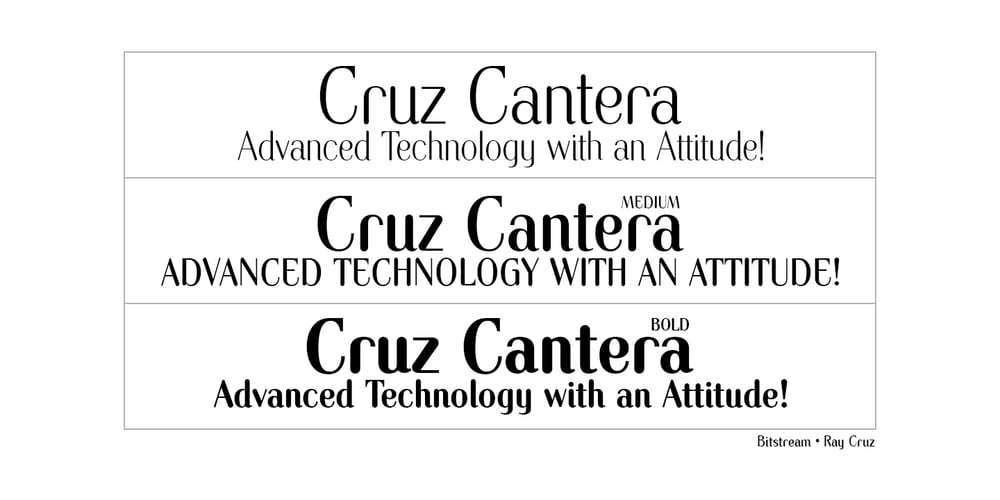
Cruz Cantera BT Font Family was designed by Ray Cruz and published by Bitstream. Cruz Cantera BT contains 3 styles and family package options. Cruz Cantera is a crisp and stylish yet informal sans serif typeface created by NYC type designer Ray Cruz. It is a slightly condensed design. The vertical strokes have rounded terminals, and there are some characters with serifs. Notable characters include the upper and lowercase E. There are three weights and each works equally well alone, or together for both display and text. Original design by Ramon Cruz completed in 2002.